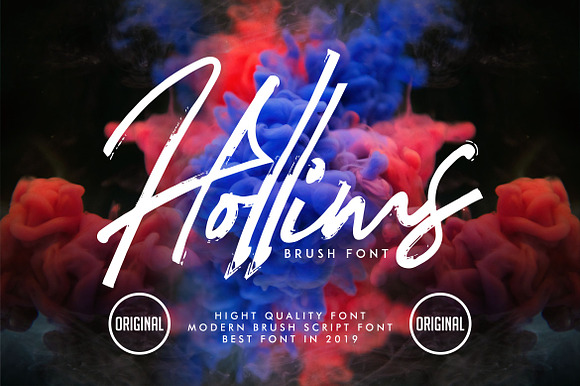
Hollims Brush Script Font
Hollims Brush Script Font by Vunira is a font selected for branding, posters, packaging, typography.
Why Hollims Brush Script Font is worth a look
Hollims Brush Script Font by Vunira fits naturally into Branding, posters, packaging, typography.